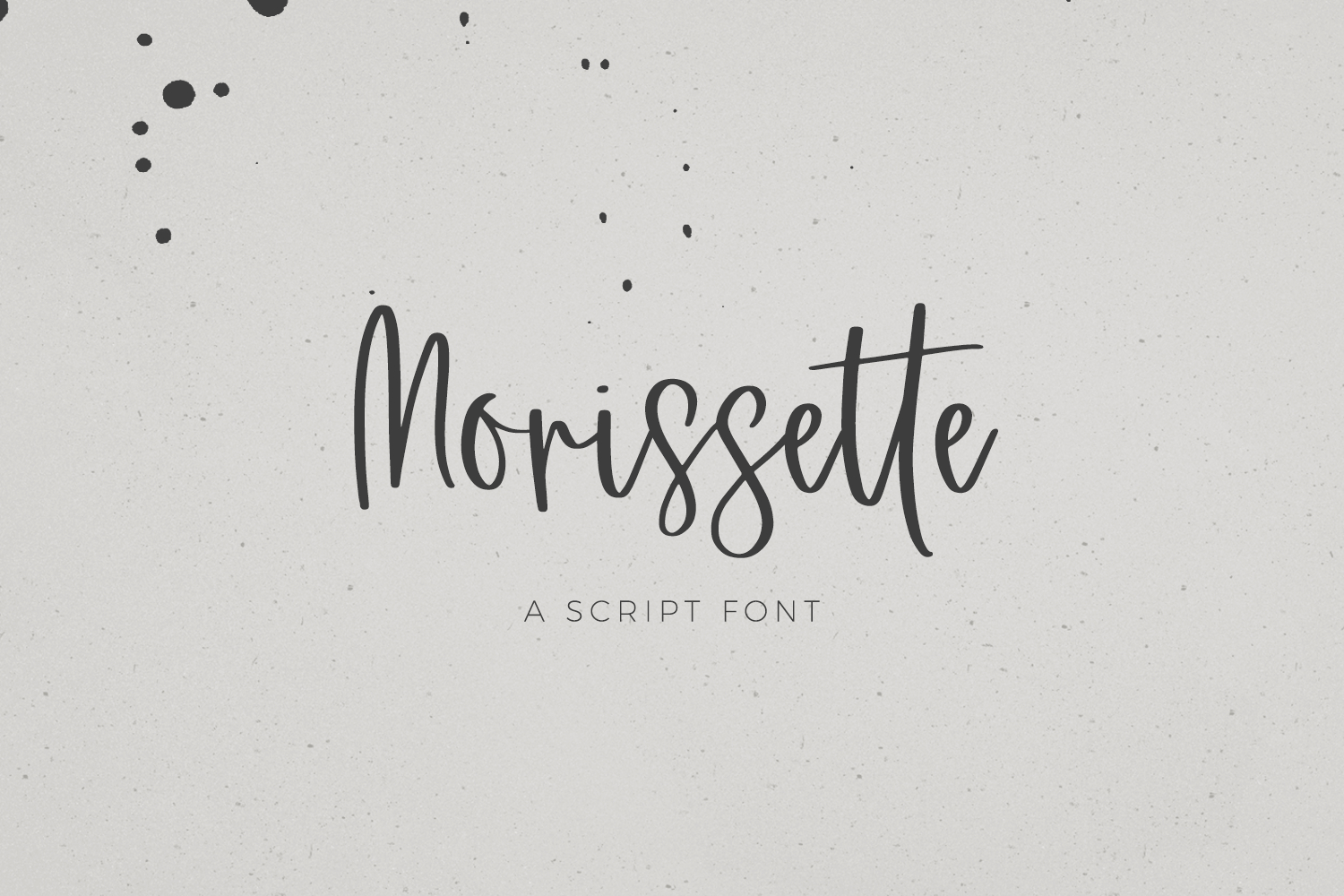
Meet Morissette Script - it’s a little messy, a little bouncy!
Morissette is best for:
- website design + website accents - think travel blogs, fashion blogs, & more
- 14 ligatures - bb, dd, ee, ff, gg, ll, mm, nn, oo, pp, rr, ss, th, tt